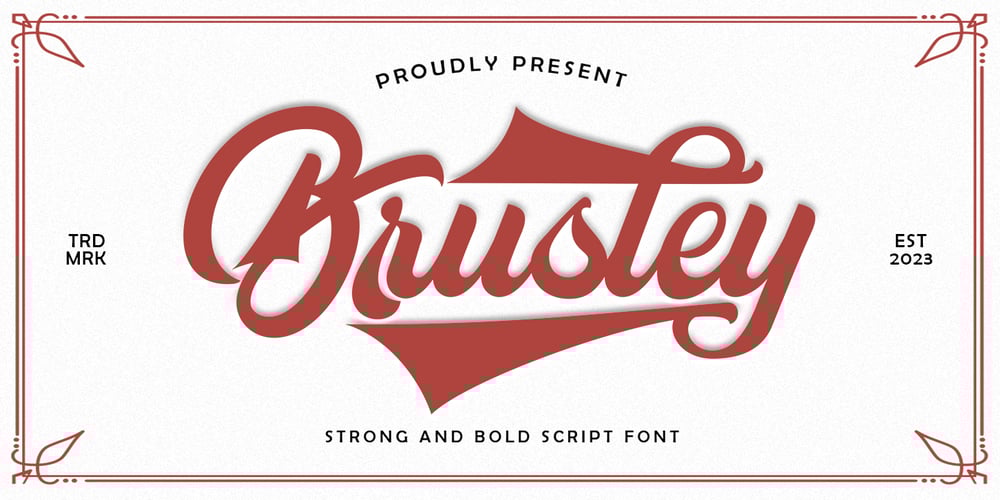
Brusley Script Font Family was designed by Rizki Andika and published by Letterfreshstudio. Brusley Script contains 1 styles and family package options. Brusley is a classy script. This typeface has nostalgic feel because of its style, so the font is really match for your project with classic/vintage theme. This font perfectly made to be applied especially in logo, and the other various formal forms such as invitations, labels, logos, magazines, books, greeting / wedding cards, packaging, fashion, make up, stationery, novels, labels or any type of advertising purpose.Features : Uppercase & lowercase Numbers and punctuation Alternates & Ligatures Multilingual PUA encoded